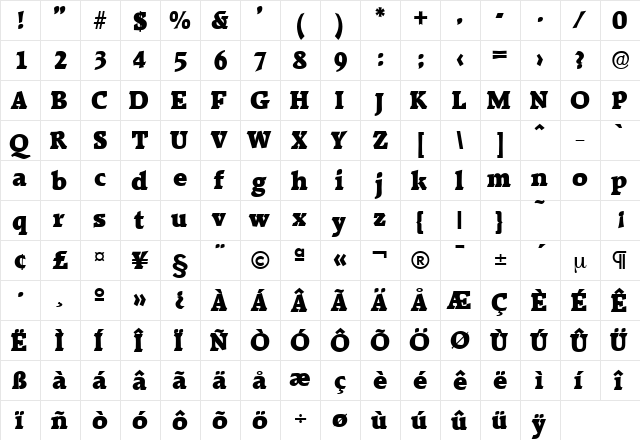
Raleigh-Serial-Black Extra Heavy Font Preview
Raleigh-Serial-Black Extra Heavy
Raleigh-Serial-Black Extra Heavy Font Details
Design Context for Raleigh-Serial-Black Typeface
Raleigh-Serial-Black offers clean, dependable letterforms without strong stylistic allegiance, making it a practical choice for designers who need flexibility.